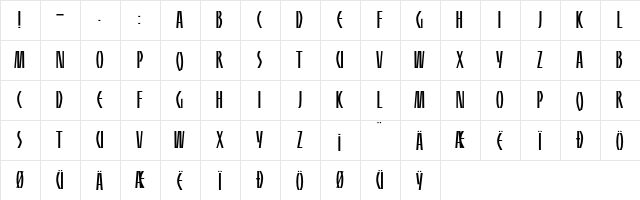
HFF Sultan of Swat Regular
| Foundry | Have Fun with Fonts |
| Designer | Have Fun with Fonts |
| Year | 2010 |
Design Context for HFF Sultan of Swat Typeface
HFF Sultan of Swat offers clean, dependable letterforms without strong stylistic allegiance, making it a practical choice for designers who need flexibility.